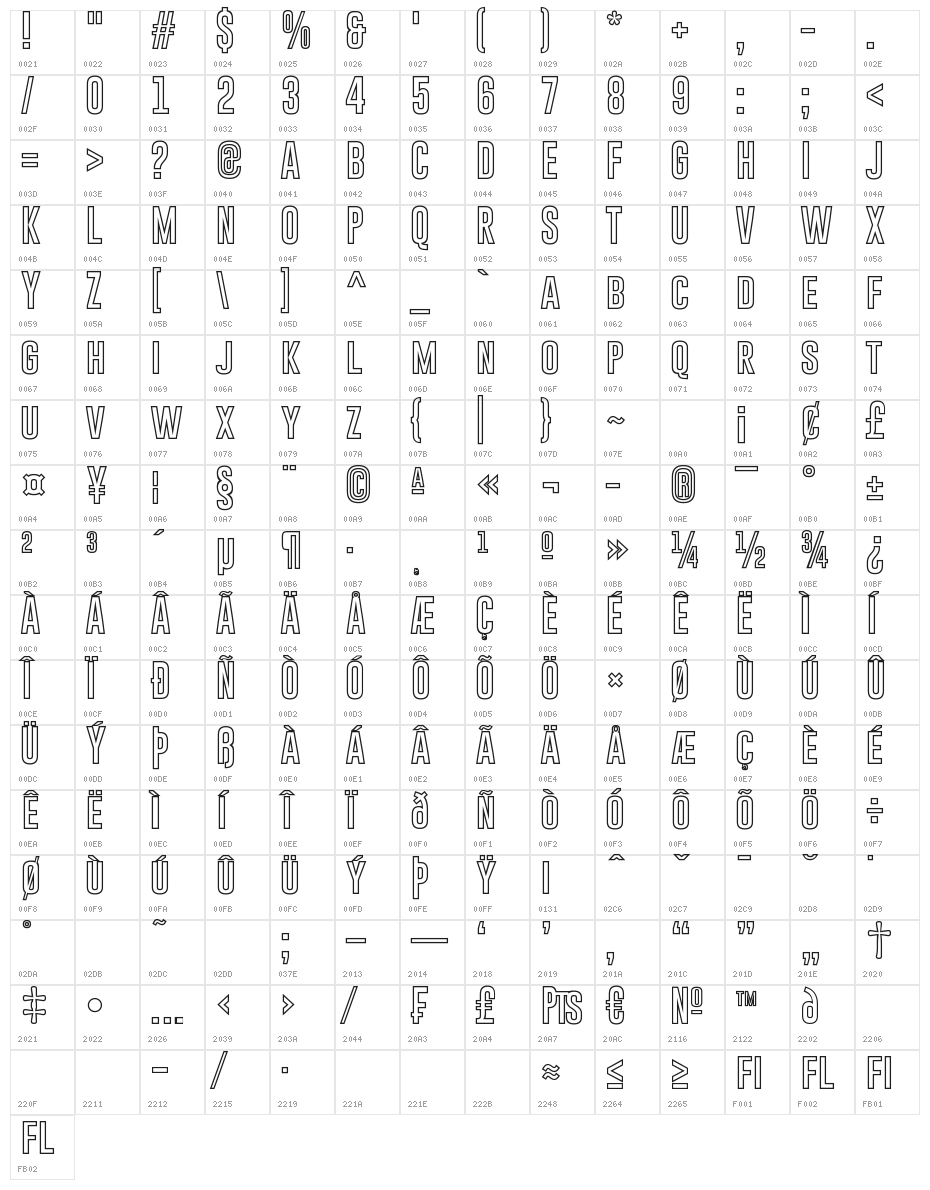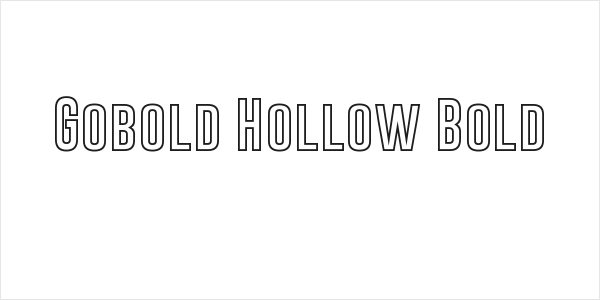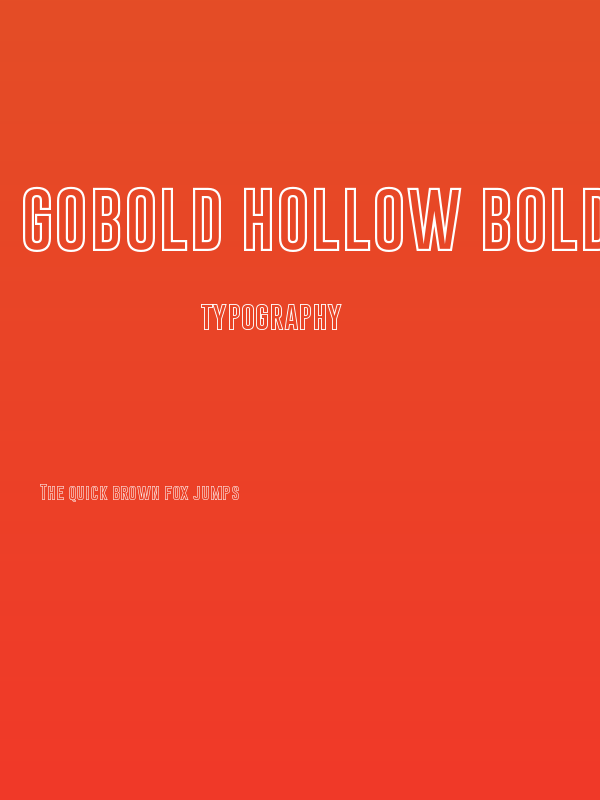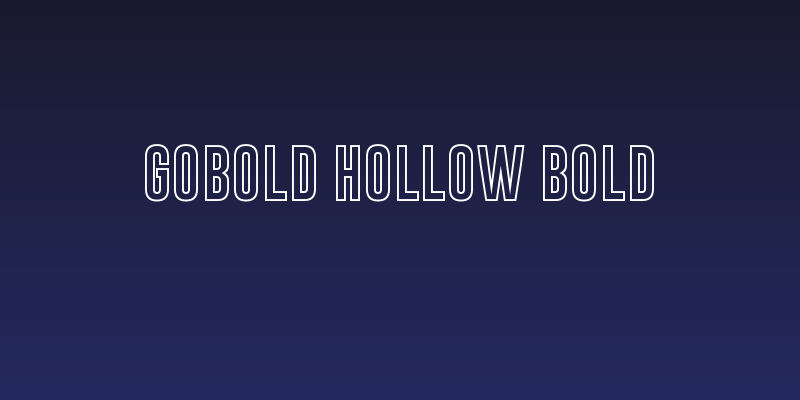
Gobold Hollow Bold Font
Gobold Hollow Bold Description
This font features a bold, hollow design with clean, geometric lines that create a striking outline effect. The uppercase and lowercase letters maintain a consistent width, giving it a uniform appearance. The numerals and special characters are designed to match the boldness and style of the alphabet, making it versatile for various uses. The font's hollow nature allows for creative layering and color play, making it ideal for eye-catching designs. Its modern and structured look is perfect for projects that require a strong visual impact.
| Proposed Projects | Ideal for posters, headlines, logos, and branding materials where a bold statement is needed. |